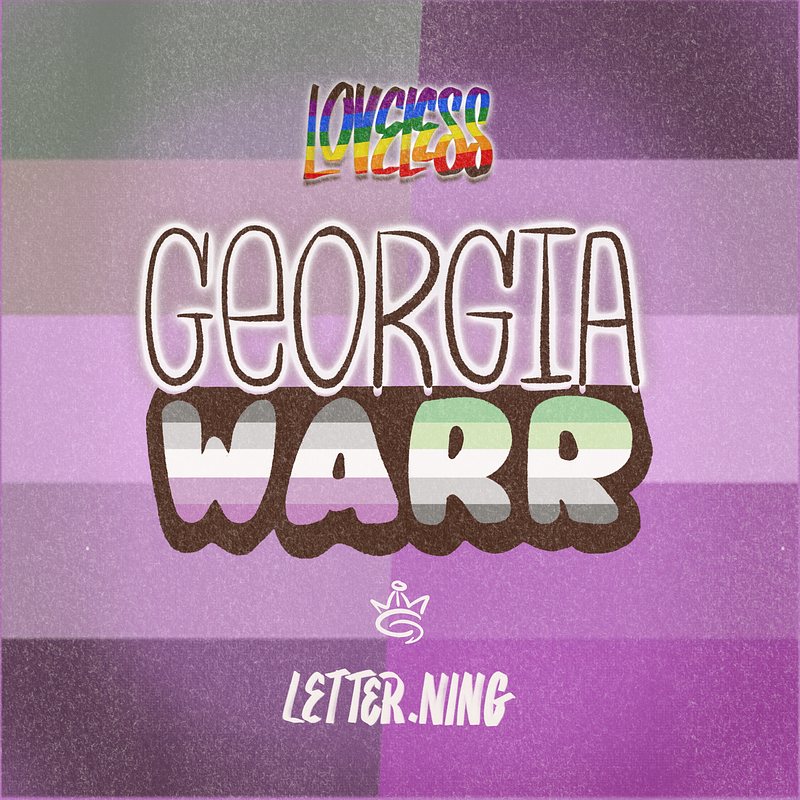
Lettering Pieace of Georgia Warr from Loveless
It's amazing to see representation for the aroace (aromantic and asexual) community portrayed in such a positive light in the book Loveless by Alice Oseman. This is the book I wish I could have read when I was younger. Witnessing Georgia's journey was incredibly inspiring. It's comforting to see that not feeling sexual and/or romantic attraction is okay and doesn't make you any less whole.
I'm proud to put the aroace flag in the lettering here.